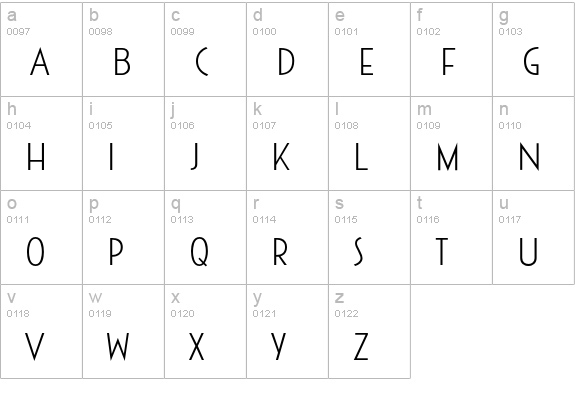
CassandraEF-Light Font Details
CassandraEF-Light is a refined, elegant variant in the CassandraEF typeface family \xE2\x80\x94 well suited to elegant body text, refined sub-headings, and luxury branding.
CassandraEF-Light is a sleek and elegant font that exudes sophistication and modernity. Its clean lines and subtle curves make it perfect for a wide range of design projects, from branding to editorial design. The light weight of the font adds a delicate touch to any layout, creating a sense of refinement and elegance. What sets CassandraEF-Light apart is that it is not only beautifully designed, but also completely free to download. You can easily access this stunning font at FontsMarket.com, where you can elevate your projects with a touch of class without any cost. Don't miss out on this opportunity to enhance your designs with the timeless beauty of CassandraEF-Light.